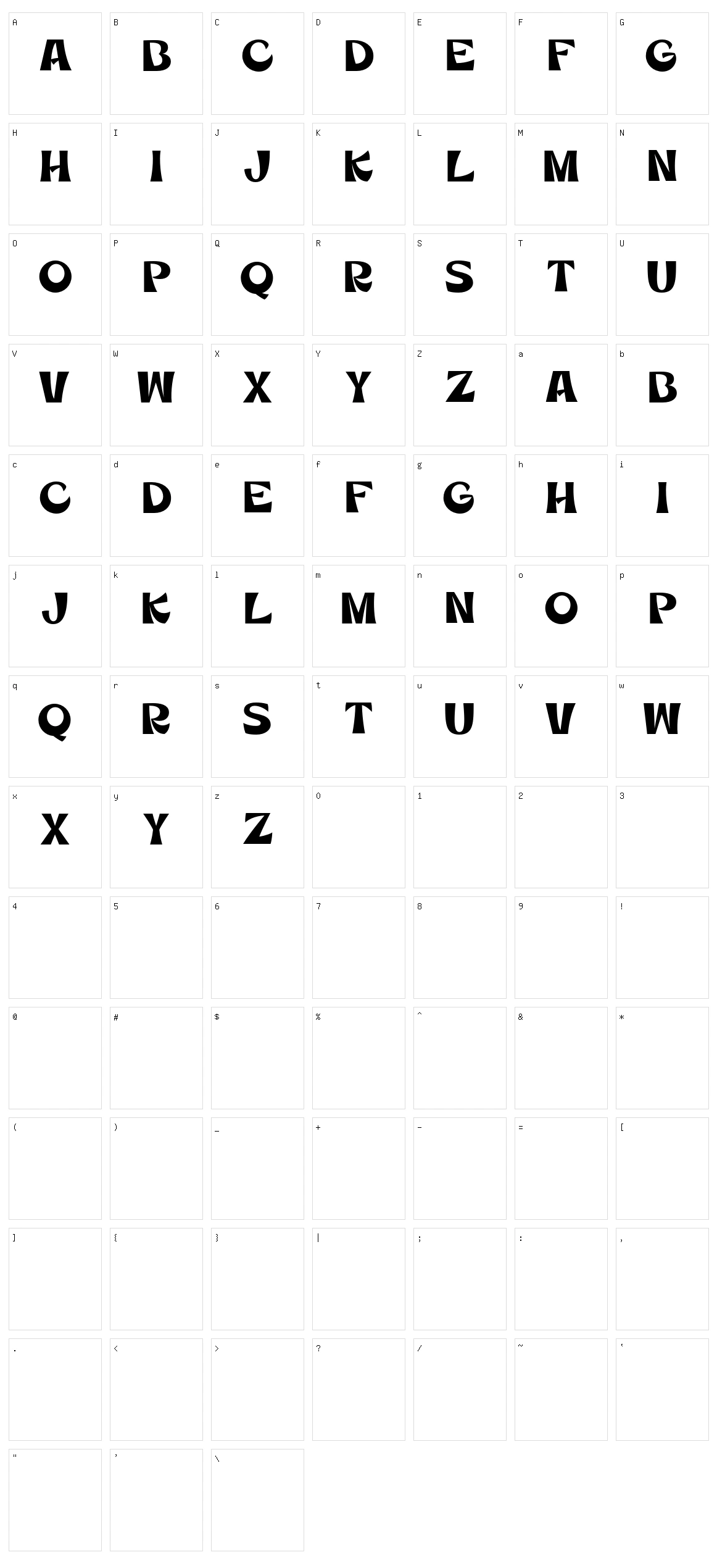
This is MERCURIA, a bold, powerful, original, wavy and friendly font.
Its versatility allows Mercuria to be used in lots of different spaces and occasions, either using only a letter or creating long text lines, it will fit perfectly, giving your designs the perfect and necessary touch of originality and style.
Features:
More than 240 characters, containing:
- Upper case
- Numbers
- Punctuation symbols, numbers, and other special characters
- Multi-language characters